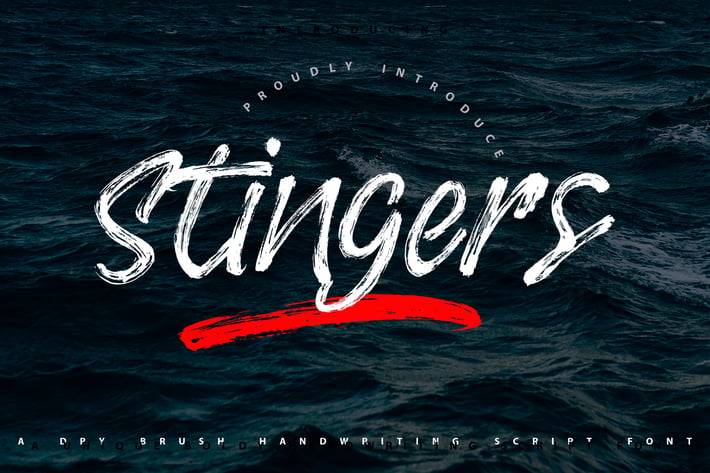
Stingers | Brush Handwriting Script Font
Stingers | Brush Handwriting Script Font with a calligraphy style, So beautiful on invitation like greeting cards, branding materials, business cards, quotes, posters, and more!